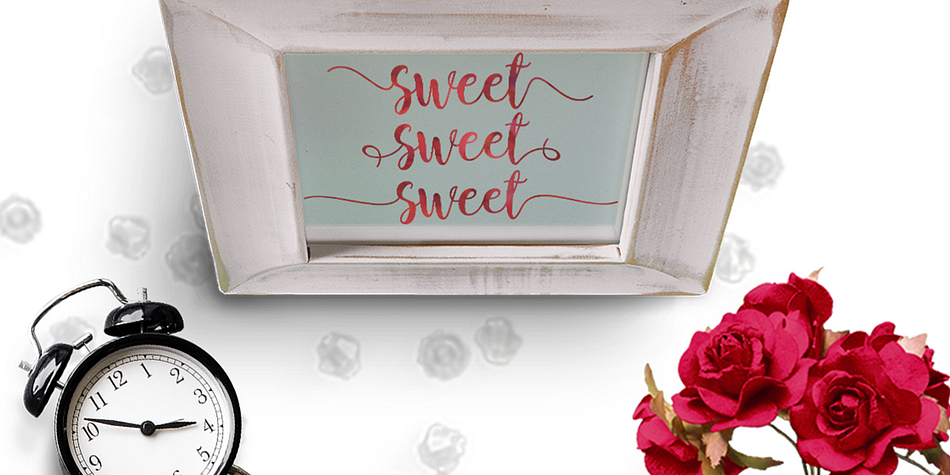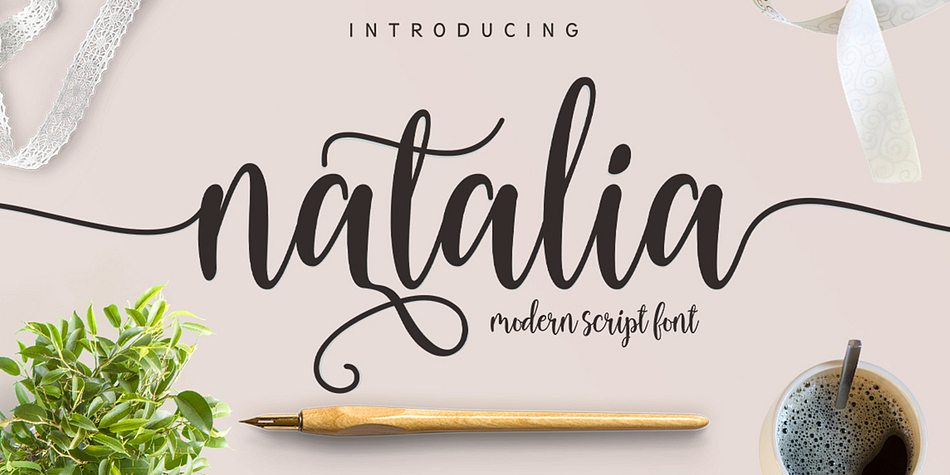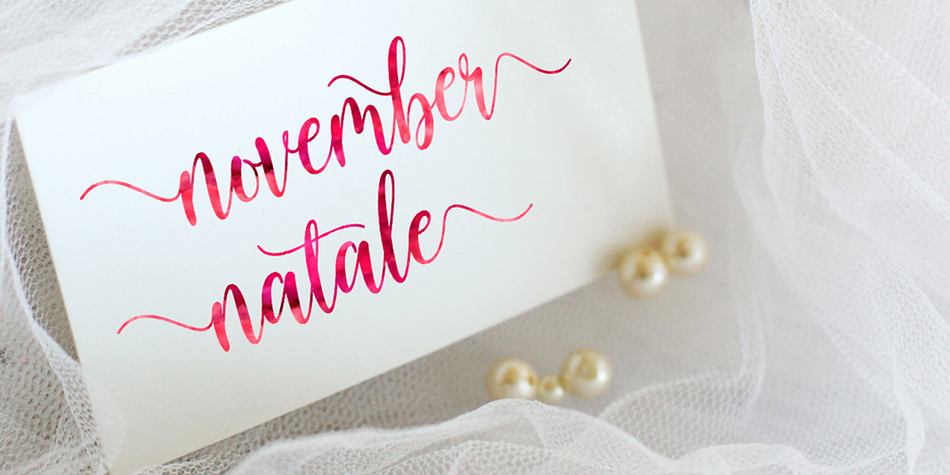
Natalia Script is a modern calligraphy font published by Area Type Studio.
Natalia Script is a modern calligraphy font, with characters dance along the baseline and elegant touch. Opentype features with stylistic alternates, ligatures, and multiple language support.
Can be used for various purposes.such as logos, wedding invitation, heading, t-shirt, letterhead, signage, label, news, posters, badges etc.
| Style | Modern Calligraphy |